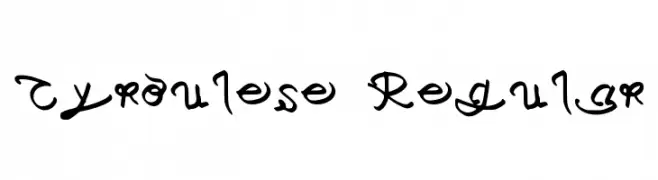
( Murat Yegul - www.formatltd.com )
A modern, geometric font with a sleek and slightly condensed design.
( Qkila - Quentin Aquila - www.creativefabrica.com/designer/qkila/ )
A bold, decorative font with a three-dimensional effect and festive style.
( mlkwsn - Malik Wisnu )
A playful, bold, and rounded hand-drawn font with a whimsical style.
( George Williams - web.archive.org/web/20051223080638/bibliofile.mc.duke.edu/gww/fonts/fonts.html )
An elegant humanistic cursive font with dynamic serifs and flowing letterforms.
( MyHome )
A playful, handwritten font with bold, fluid strokes and a whimsical style.
A bold, hand-drawn font with a playful and organic style.
A casual, handwritten font with a playful and approachable style.
A bold, angular font with a modern geometric style.
A graceful and elegant script font with flowing, cursive letterforms.
A clean, modern sans-serif font with balanced proportions and excellent readability.